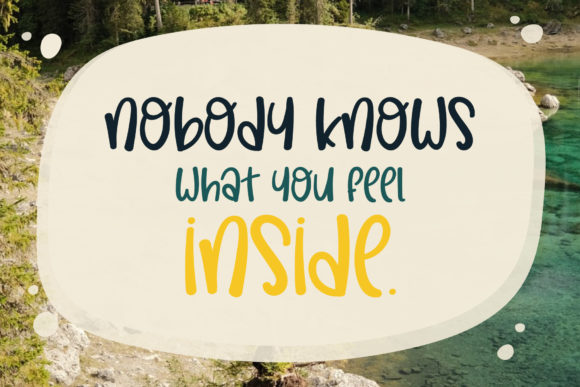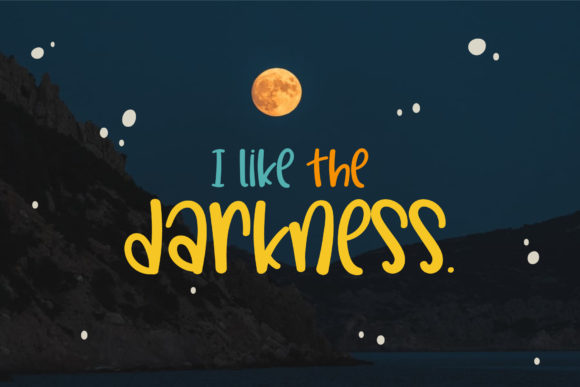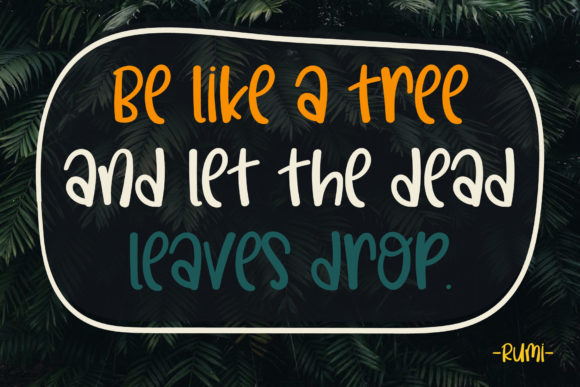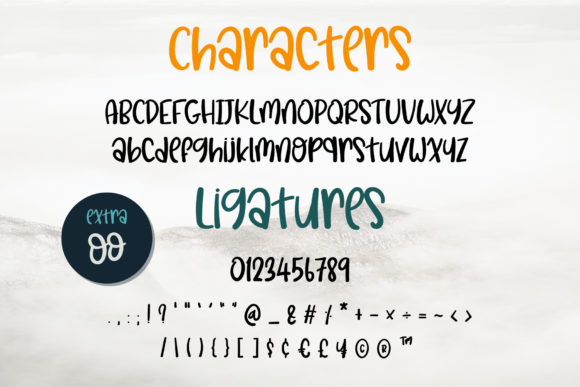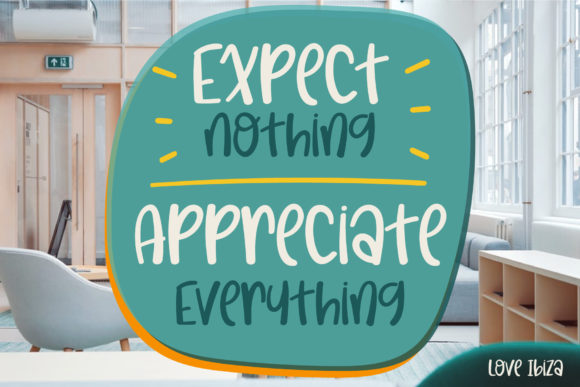
Look Around Font
Look Around is a cool, quirky and friendly handwritten font. Its informal style and casual vibe will make this font a go-to choice for each of the creations that require a relaxed touch.